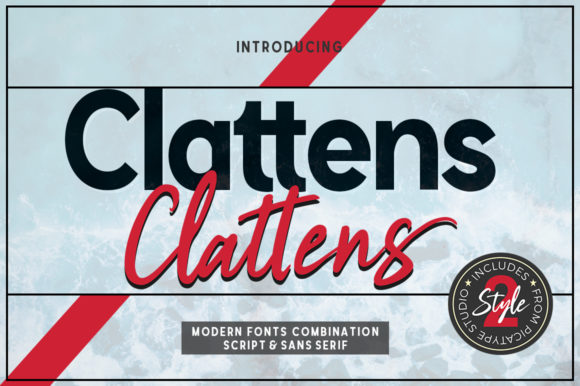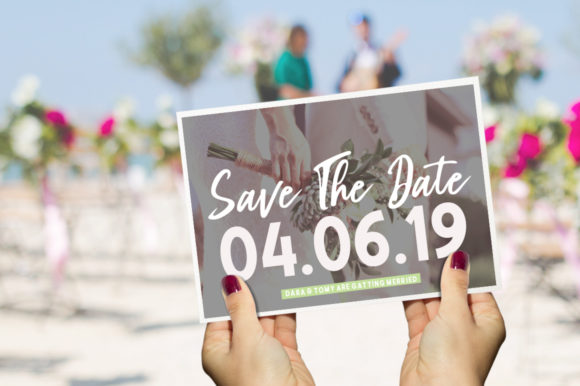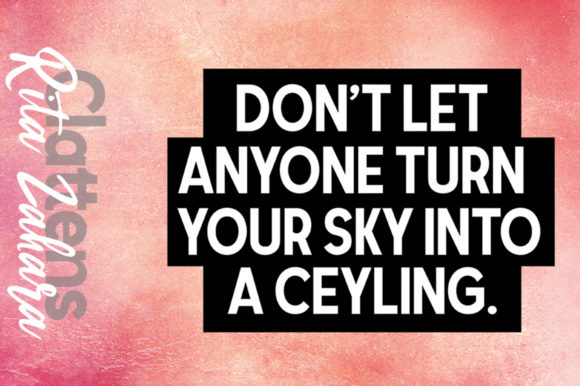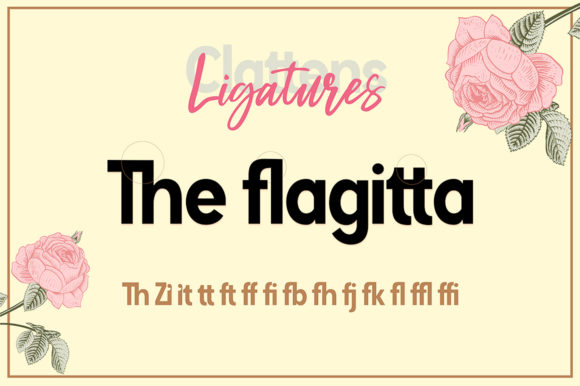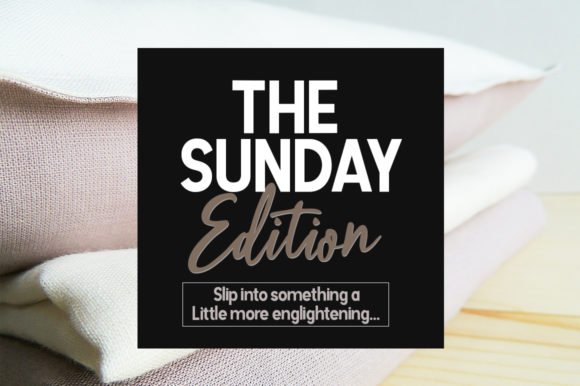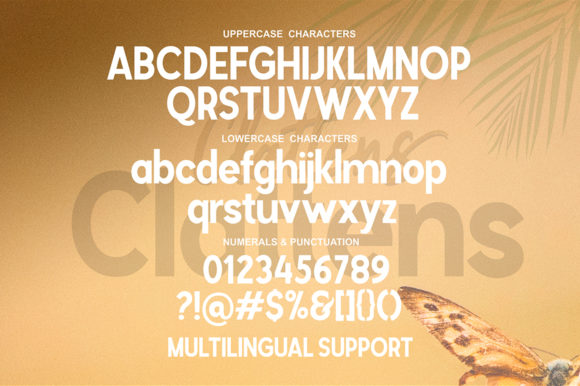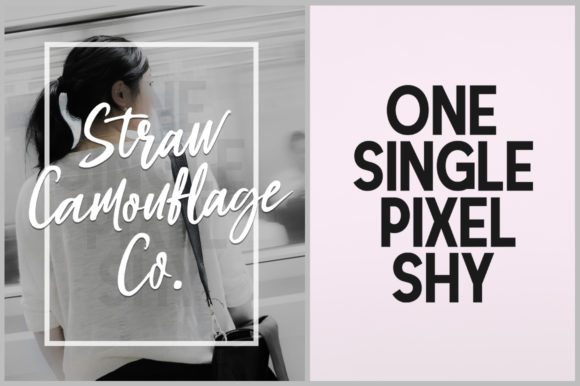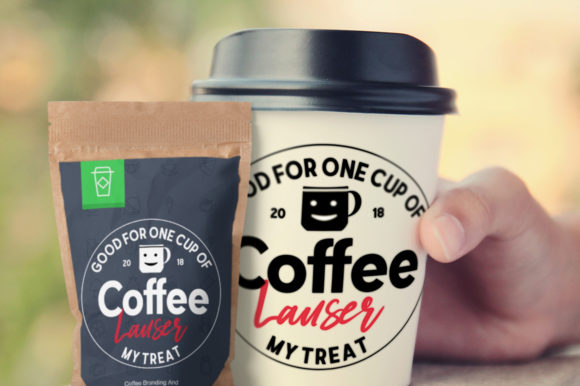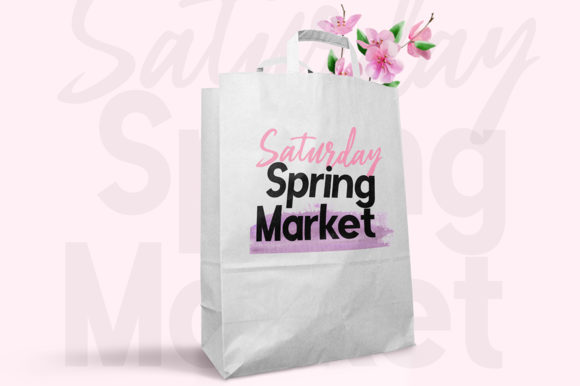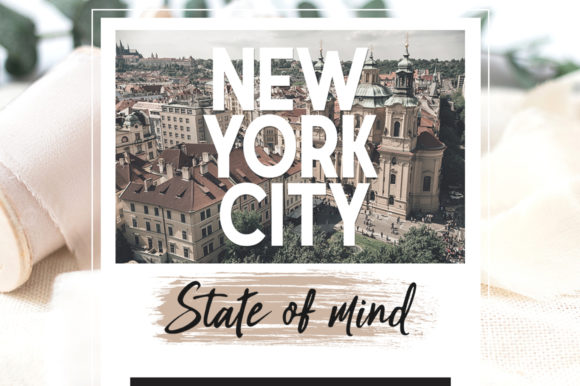
Clattens Duo Font
About Clattens Duo Font
The Clattens is a modern font duo. It’s a cool combination between a super heavy sans serif and a carefree brush script.
It’s ideal for adding a striking and unique look to your designs. Give it a try, mix it up, and be awesome!